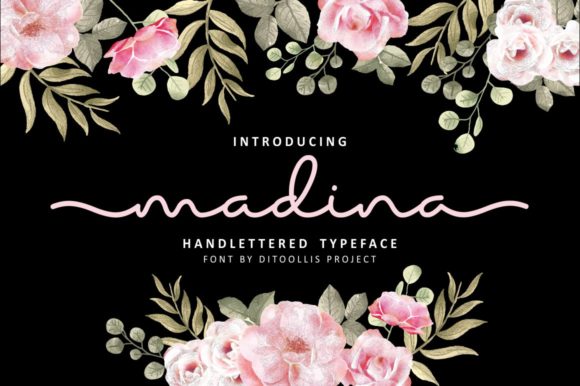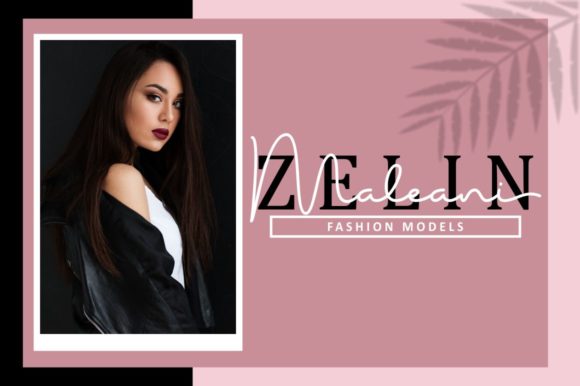
Madina Font: Elegant Script for Wedding Invitations & Social Media Design
About the Madina Font
The Madina Font is here to transform your projects with its distinctive character and style. Madina is a stunning script that features an incredibly casual, yet elegant look.
Fall in love with its authentic feel and use it to create gorgeous wedding invitations, beautiful stationary art, eye-catching social media posts, and cute greeting cards.
Madina’s elegant yet casual style makes it ideal for projects requiring a touch of refined playfulness. It excels in headlines, short-form text on invitations, social media graphics, and branding elements where a hand-lettered feel is desired. Avoid using Madina for body text or large blocks of text; its script nature makes extended reading difficult.
Pairing Madina with a clean sans-serif like Montserrat or Lato provides a strong contrast and balances its organic quality. For a more formal look, consider a classic serif like Garamond or Times New Roman. These pairings create visual hierarchy and ensure readability.
Madina projects a friendly, approachable elegance. It is best suited for brands and projects focused on events, lifestyle products, or anything aiming for a sophisticated but not overly serious tone.